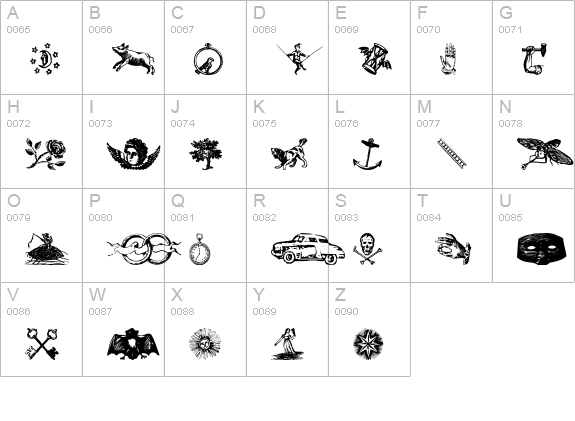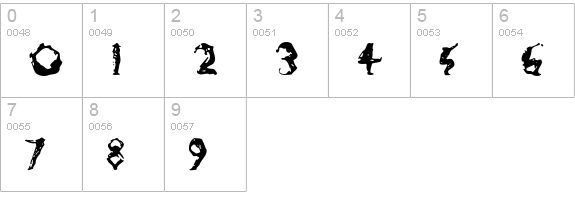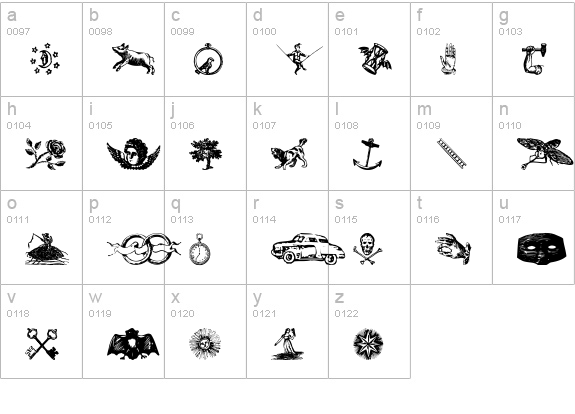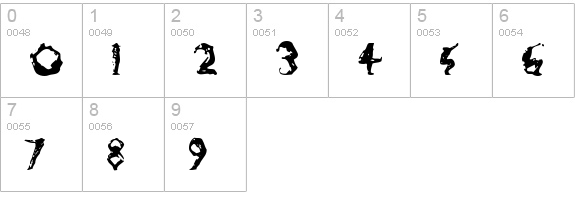
Infinite Dingbats Font Details
Introducing the captivating and versatile Infinite Dingbats font, a true gem in the world of typography. This extraordinary typeface is a perfect fusion of creativity and functionality, designed to add a touch of magic to any creative project. With its extensive collection of unique and intricately crafted dingbats, Infinite Dingbats font offers an infinite number of possibilities to enhance your designs. Featuring an array of captivating symbols, icons, and decorative elements, this font unlocks a world of imagination, allowing you to easily express your ideas and concepts in a visually stunning way. From playful and whimsical to elegant and sophisticated, Infinite Dingbats font has something for every style and occasion. But what truly sets Infinite Dingbats font apart is its incredible value for money. Unlike other fonts that come with a hefty price tag, Infinite Dingbats font is completely free! Yes, you read that right. This remarkable font can be freely downloaded at FontsMarket.com, one of the most trusted sources for high-quality fonts. Whether you're a graphic designer, illustrator, or simply someone who loves to add a touch of creativity to their projects, Infinite Dingbats font is a must-have in your font collection. Its versatility and attention to detail make it an ideal choice for a wide range of applications, including branding, packaging, social media graphics, invitations, and so much more. So why wait? Unlock the unlimited possibilities of Infinite Dingbats font today. Download it for free at FontsMarket.com and let your imagination run wild!